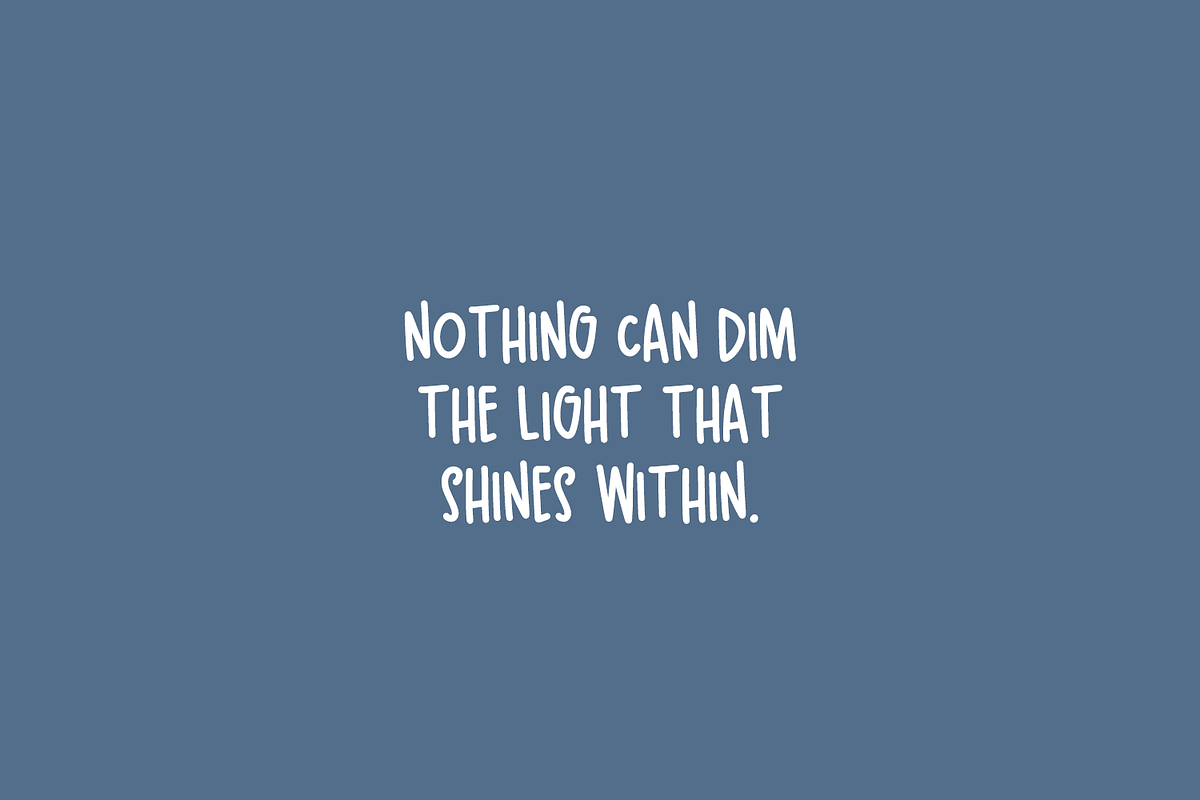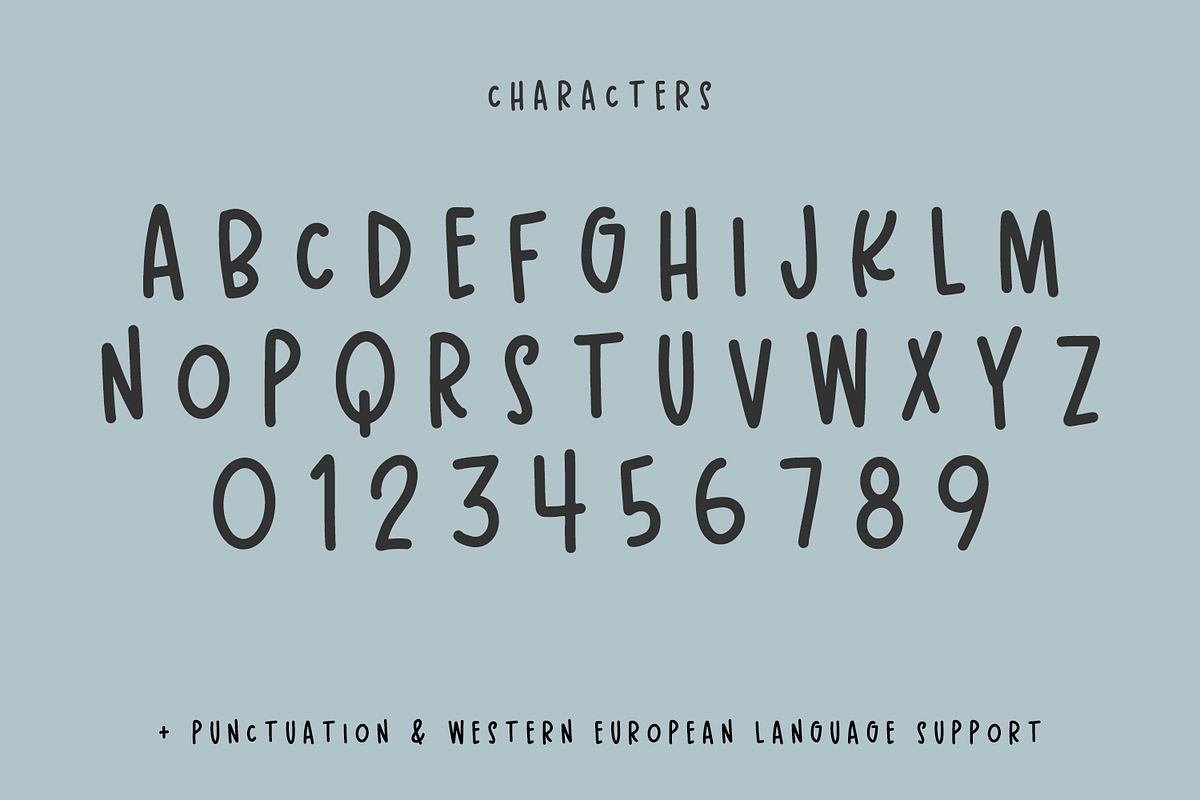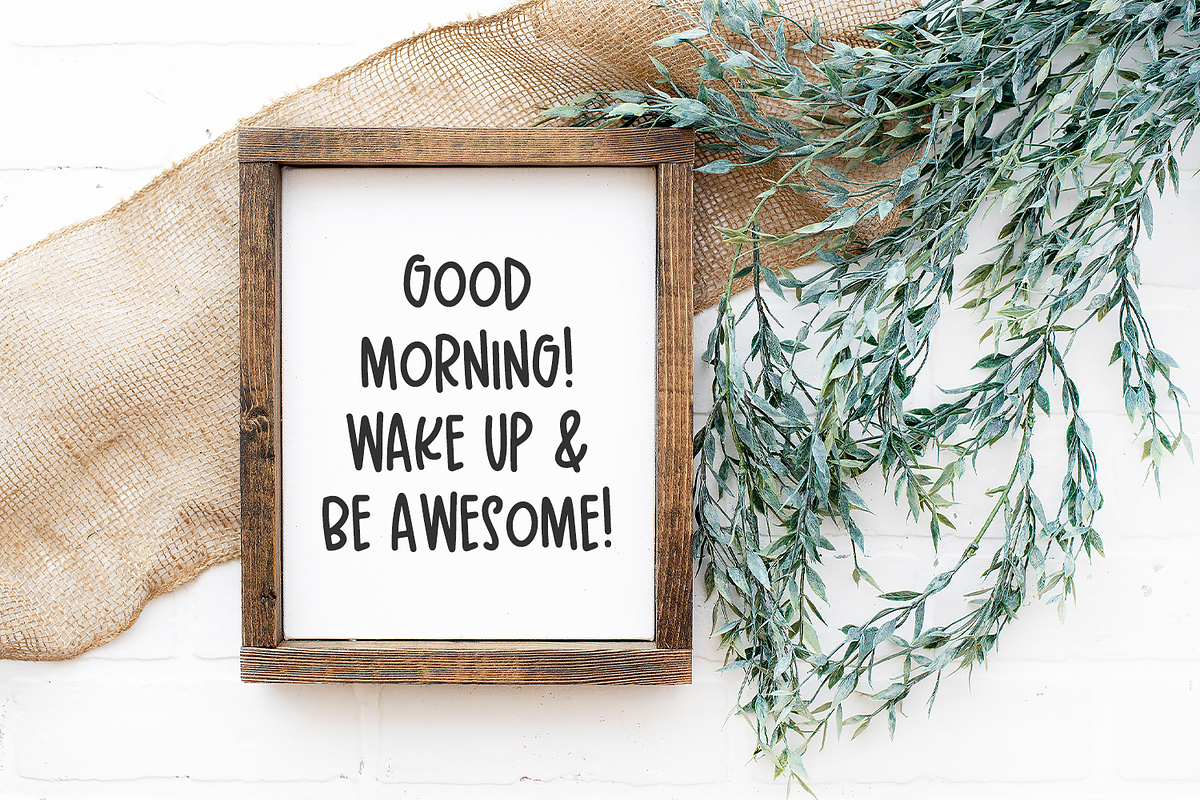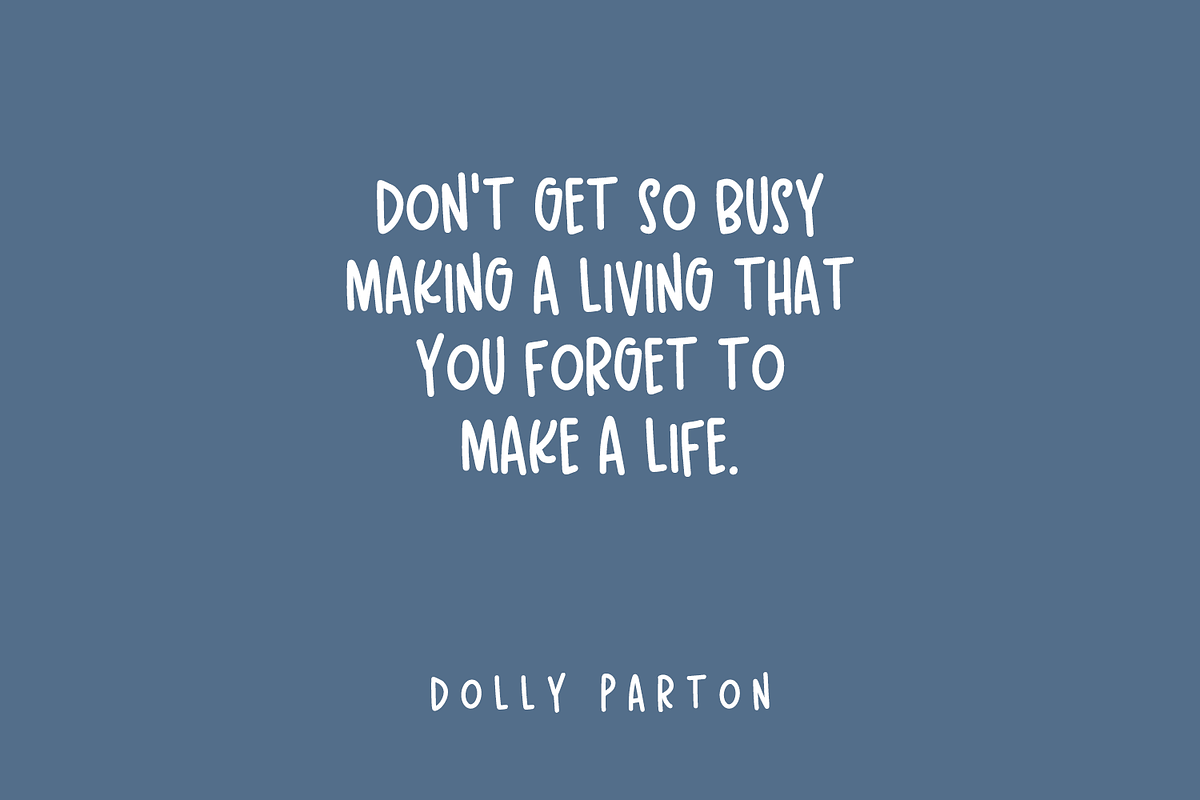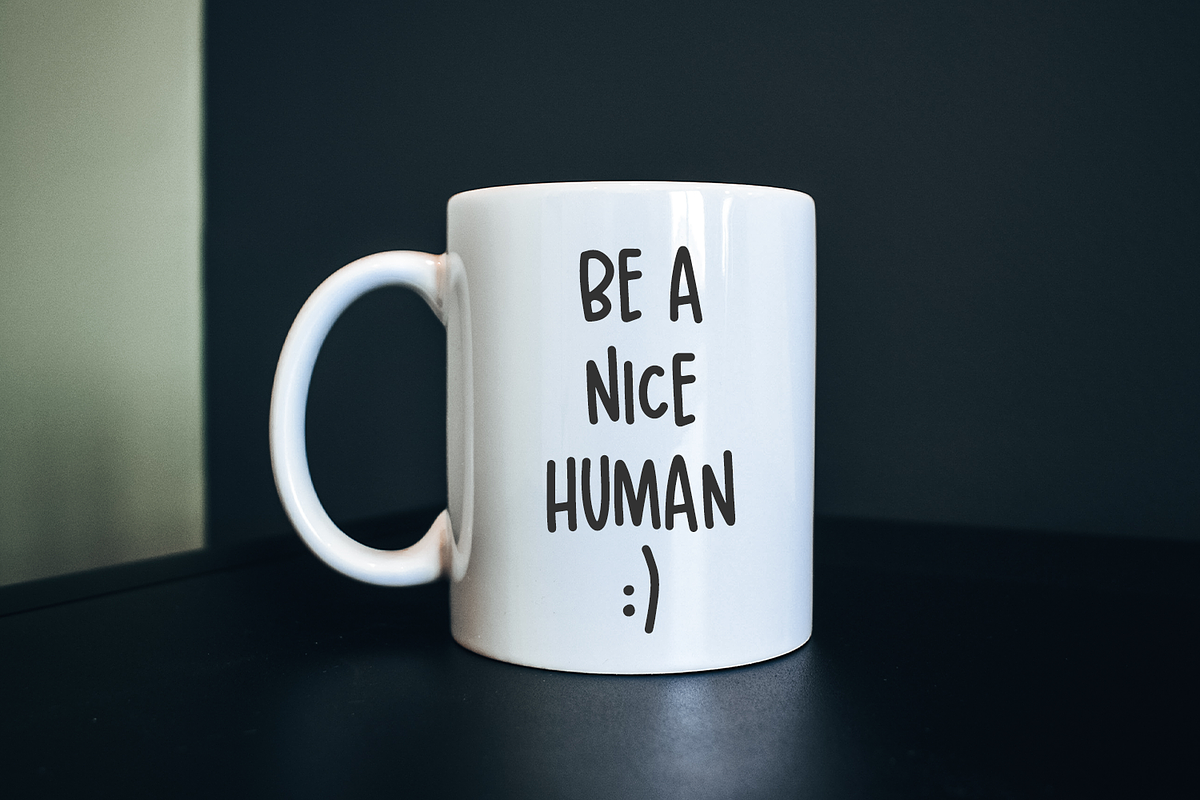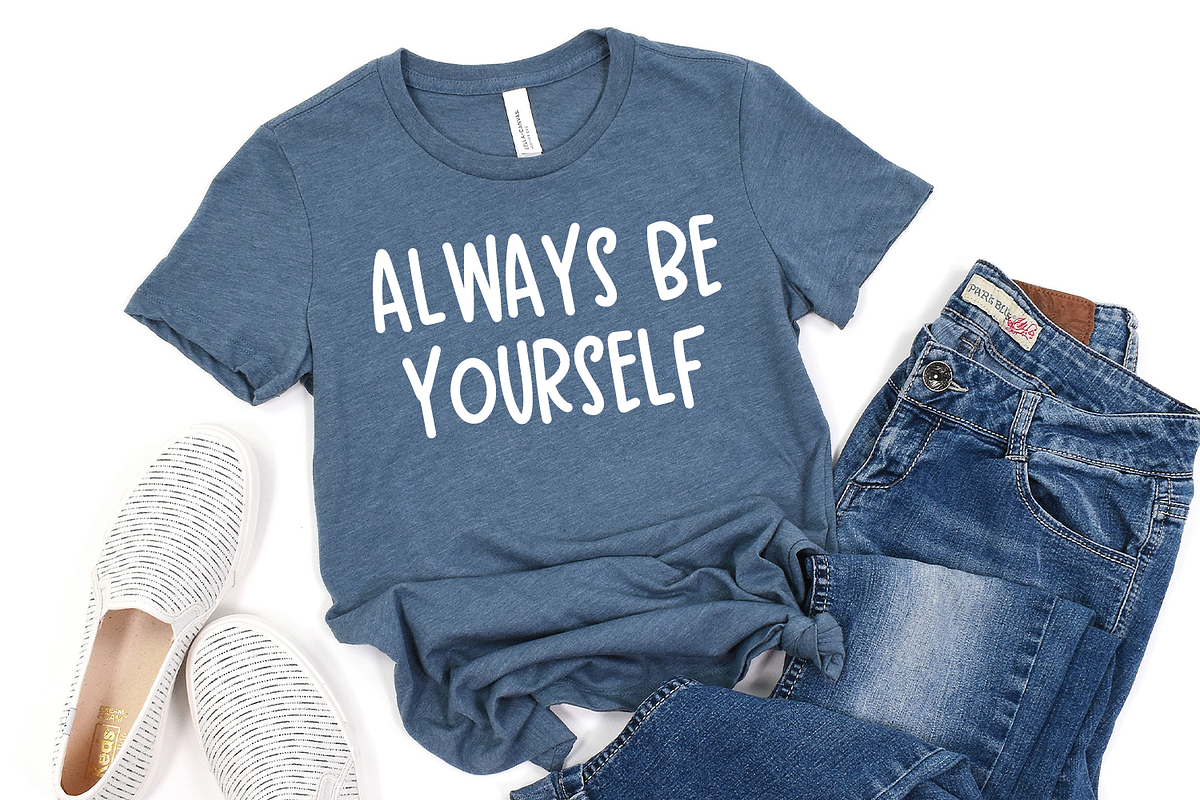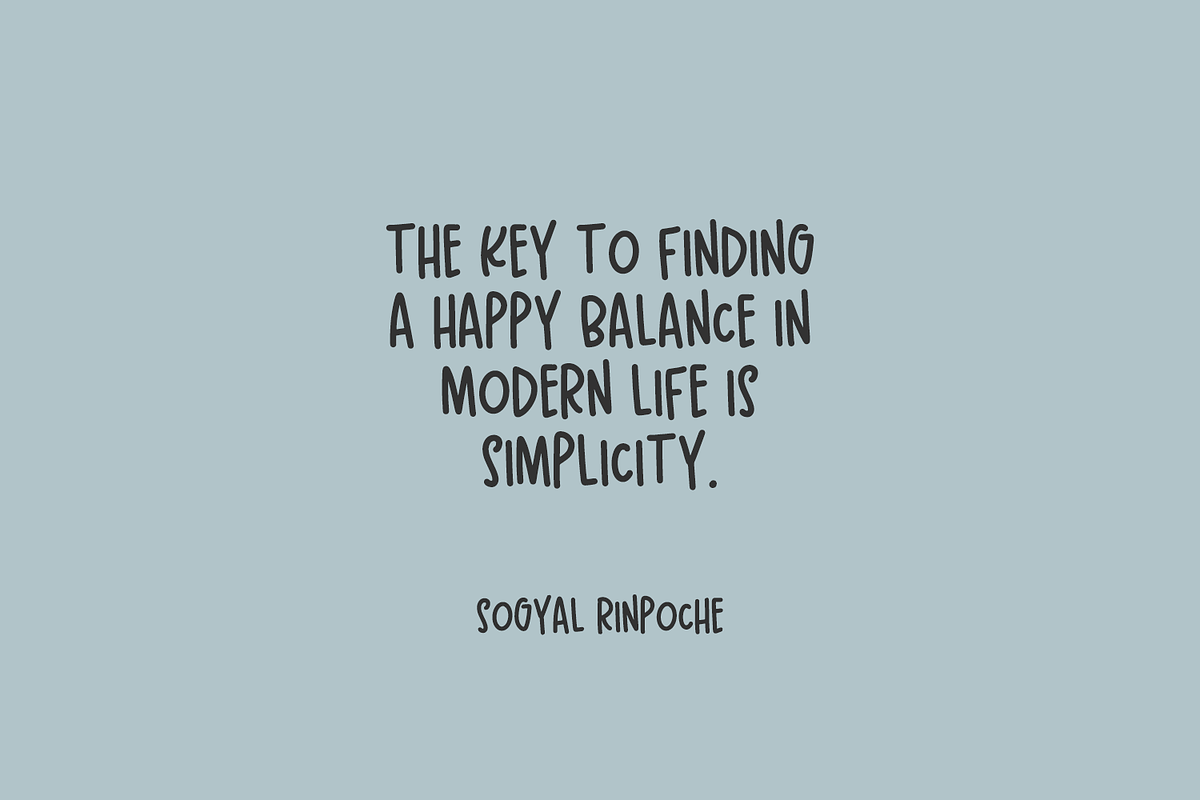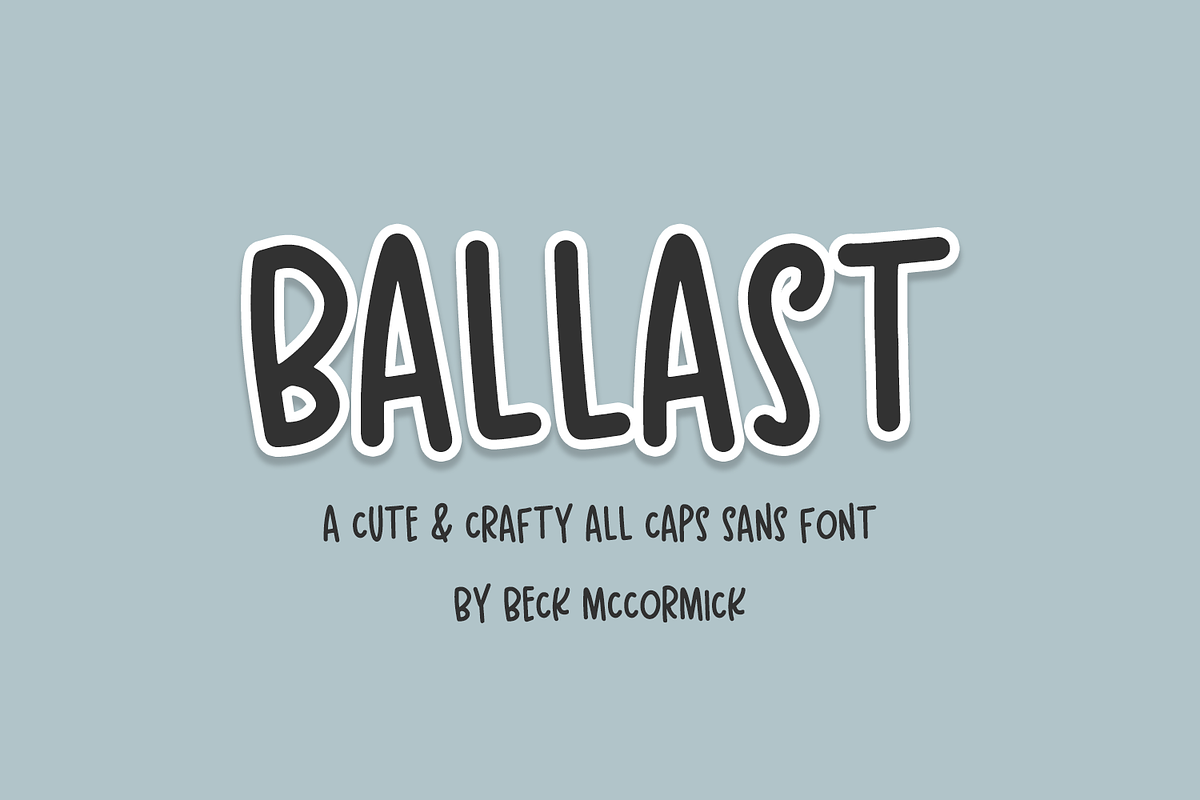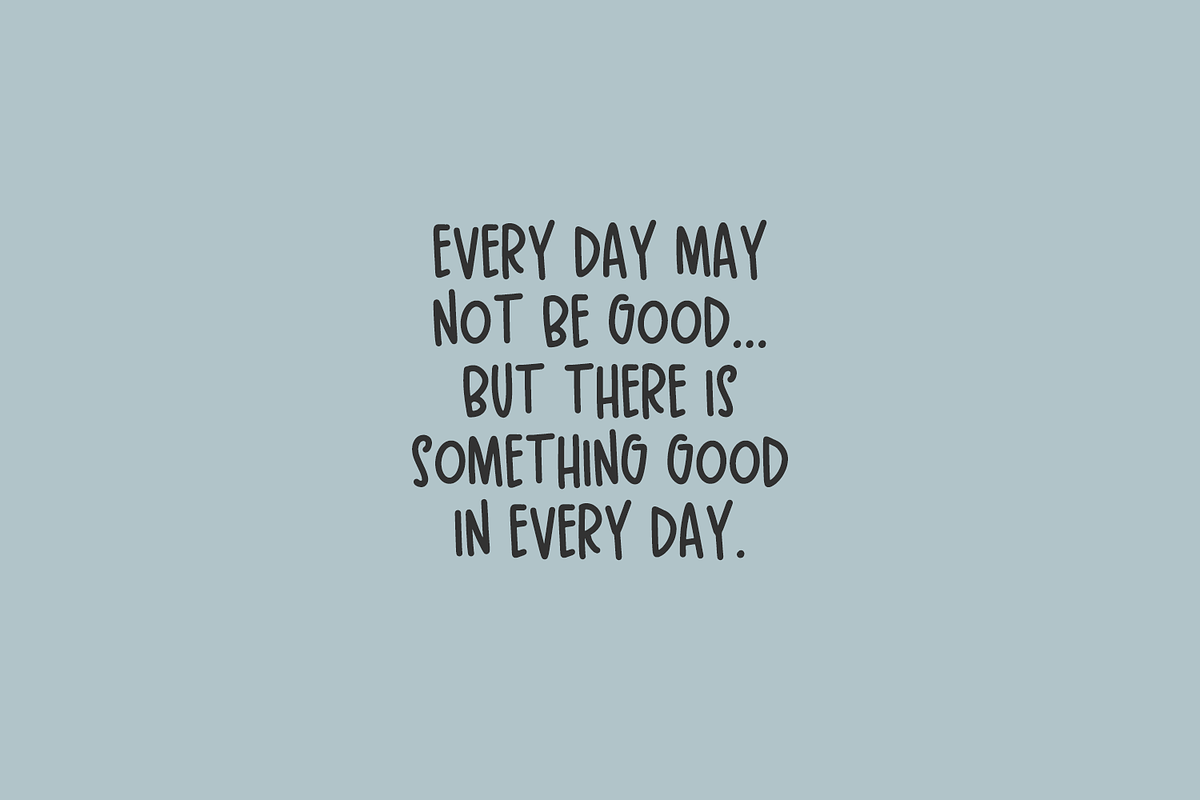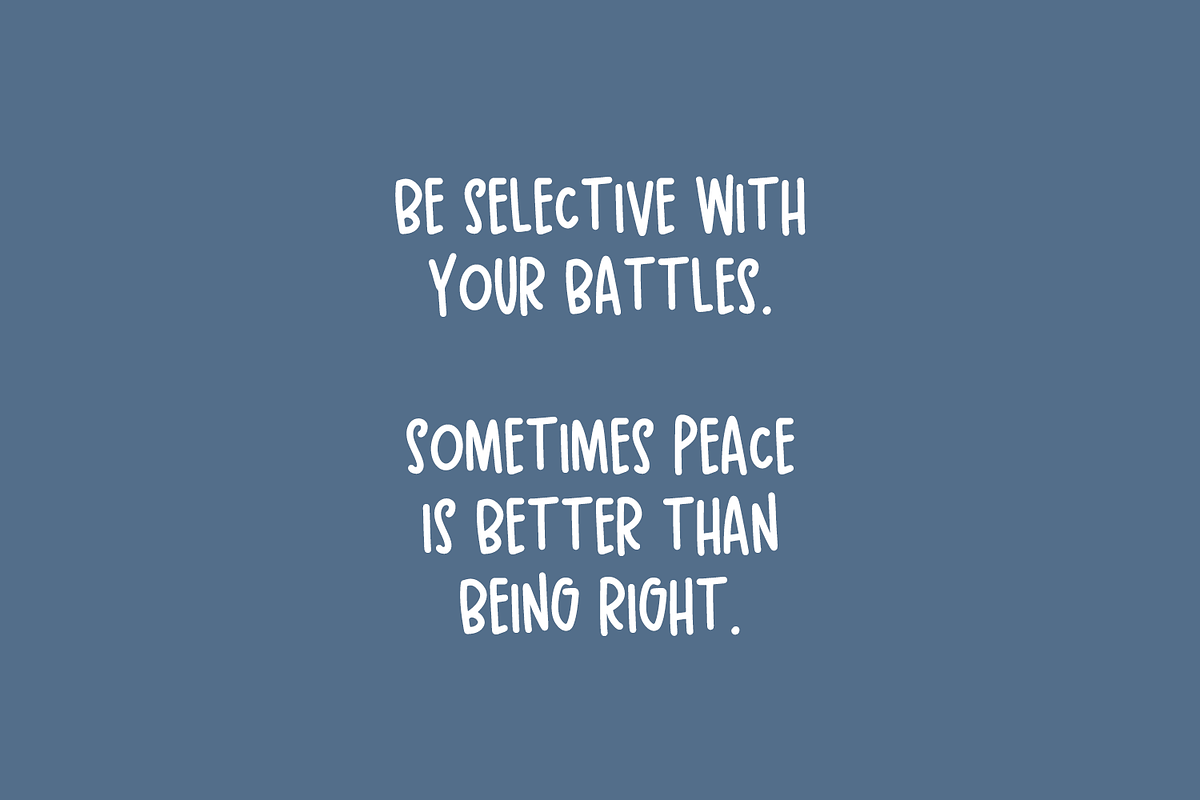
Ballast Sans
Introducing Ballast, an all-caps font with neat & clean lines. Ballast is cute & quirky.
Ballast is best for:
- feminine, crafty projects with your Cricut or Silhouette machine, or your SVG design business
- using as a reference to teach handwriting & penmanship skills
- logos + branding
- digital planners & apps like Goodnotes
- website design + website accents, blog design
- clean print design, like magazines + flyers
- header elements that need handwritten touch
- quote graphics for social media
- feminine graphic tee shirt design & other apparel
Ballast includes:
- full uppercase characters for both caps & lowercase glyphs
- numbers + punctuation
- Western European Language Support